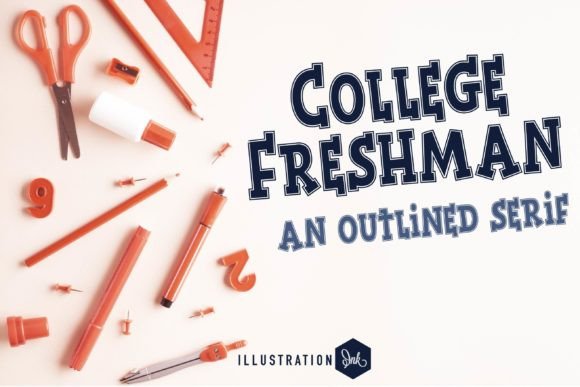
Introducing College Freshman Font: Elevate Your Designs with a Double Outline Twist
Are you tired of using the same old fonts in your designs? Look no further! College Freshman is an exciting new all-caps serif font that adds a double outline to make your creative projects stand out. In this article, we’ll dive into the world of College Freshman Font, exploring its features, uses, and benefits for designers and crafters.
The Unique Features of College Freshman Font
College Freshman Font boasts a distinctive double outline that sets it apart from other fonts. This eye-catching feature adds depth and dimension to your designs, making them more engaging and attention-grabbing. The all-caps serif font is perfect for headlines, titles, and emphasis text, adding a touch of sophistication and elegance to your work.
Key Characteristics of College Freshman Font:
- All-caps serif font: Perfect for headlines, titles, and emphasis text
- Double outline: Adds depth and dimension to your designs
- Sophisticated and elegant: Elevates your designs with a touch of refinement
Adding College Freshman Font to Your Design Toolkit
So, how can you incorporate College Freshman Font into your design workflow? Here are a few ideas to get you started:
- Use it as a headline font: College Freshman Font is perfect for grabbing attention and setting the tone for your content
- Add it to your branding materials: Use College Freshman Font to create eye-catching logos, business cards, and brochures
- Experiment with digital designs: Try using College Freshman Font in social media graphics, presentations, and email newsletters
Benefits of Using College Freshman Font
So, why should you choose College Freshman Font for your next design project? Here are just a few benefits:
- Stand out from the crowd: College Freshman Font’s unique double outline feature ensures your designs won’t get lost in the sea of sameness
- Easily readable: The serif font is clear and easy to read, even at smaller sizes
- Versatile: Use College Freshman Font in a variety of design applications, from print to digital
Tips for Getting the Most Out of College Freshman Font
To make the most of College Freshman Font, try these expert tips:
- Experiment with color: Play with different color combinations to find the perfect match for your design
- Mix and match with other fonts: Pair College Freshman Font with other fonts to create a unique visual hierarchy
- Don’t be afraid to get creative: Use College Freshman Font in unexpected ways to add visual interest to your designs
College Freshman Font is an exciting new addition to the world of typography. With its unique double outline feature and all-caps serif design, it’s the perfect choice for designers and crafters looking to elevate their creative projects. Whether you’re working on a logo, brochure, or digital design, College Freshman Font is sure to make your work stand out. So why wait? Add College Freshman Font to your design toolkit today and watch your creativity come alive!
- What is College Freshman Font?
- College Freshman Font is an all-caps serif font with a double outline, perfect for adding a touch of sophistication and elegance to your designs.